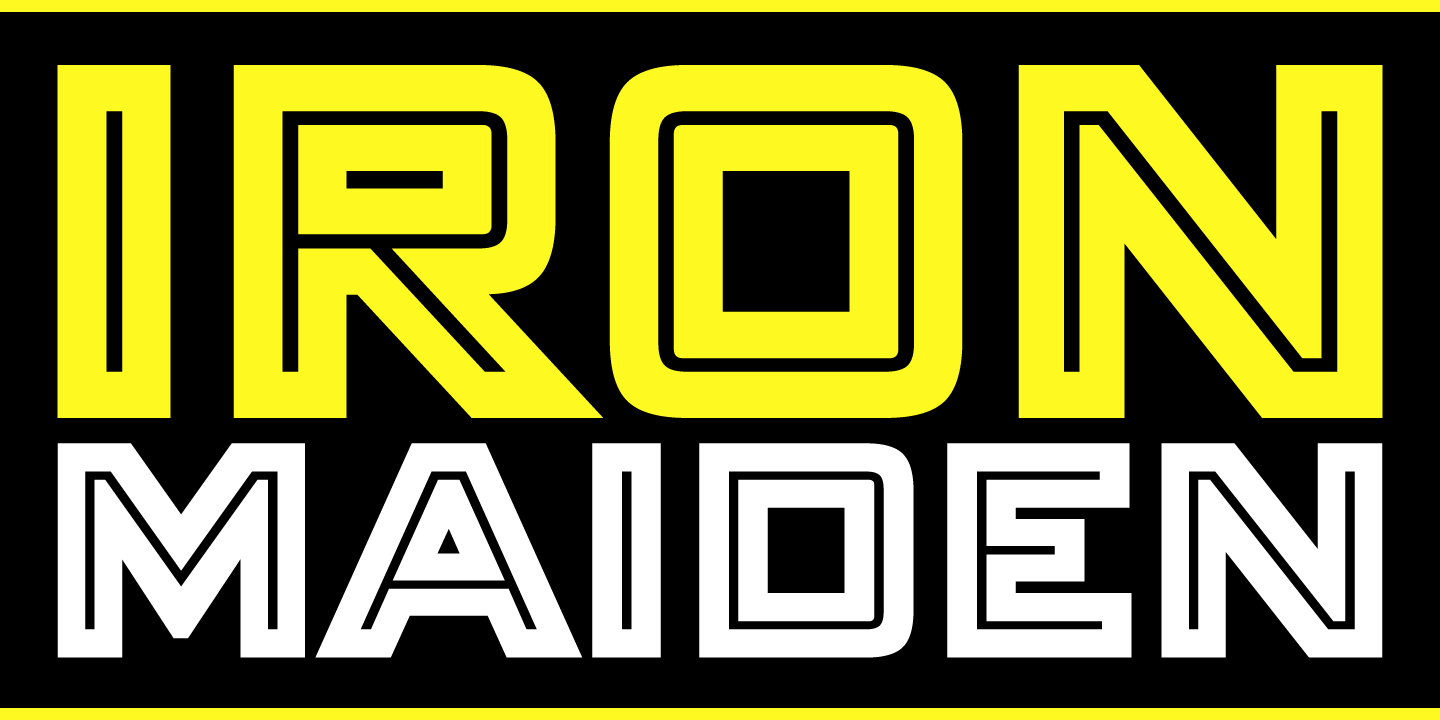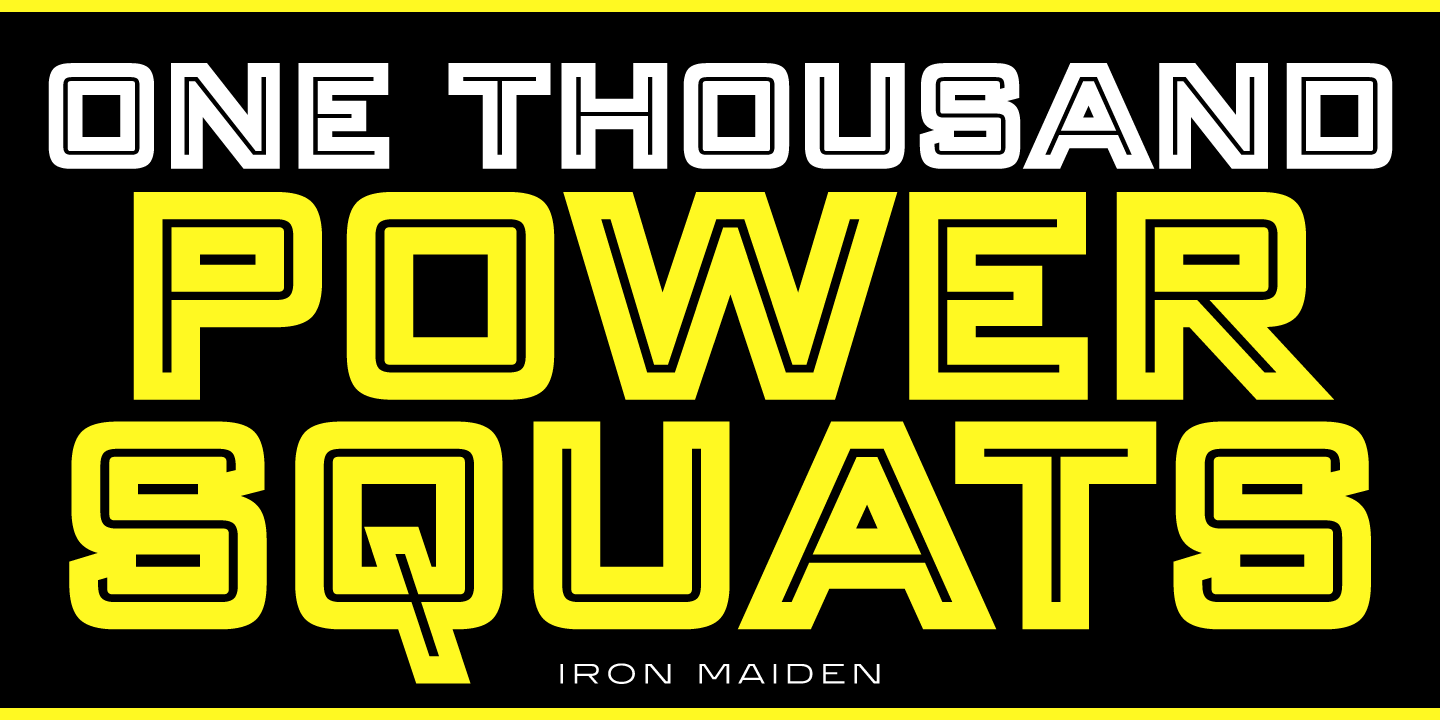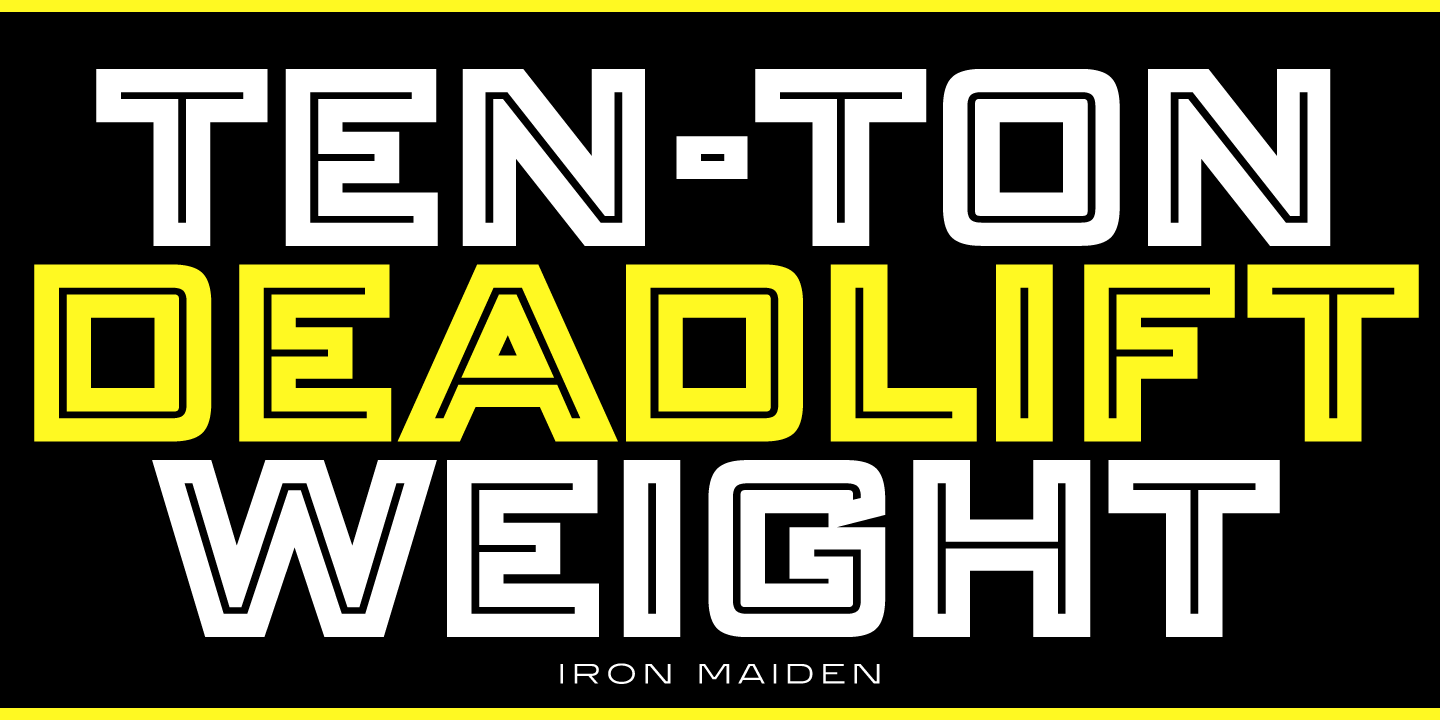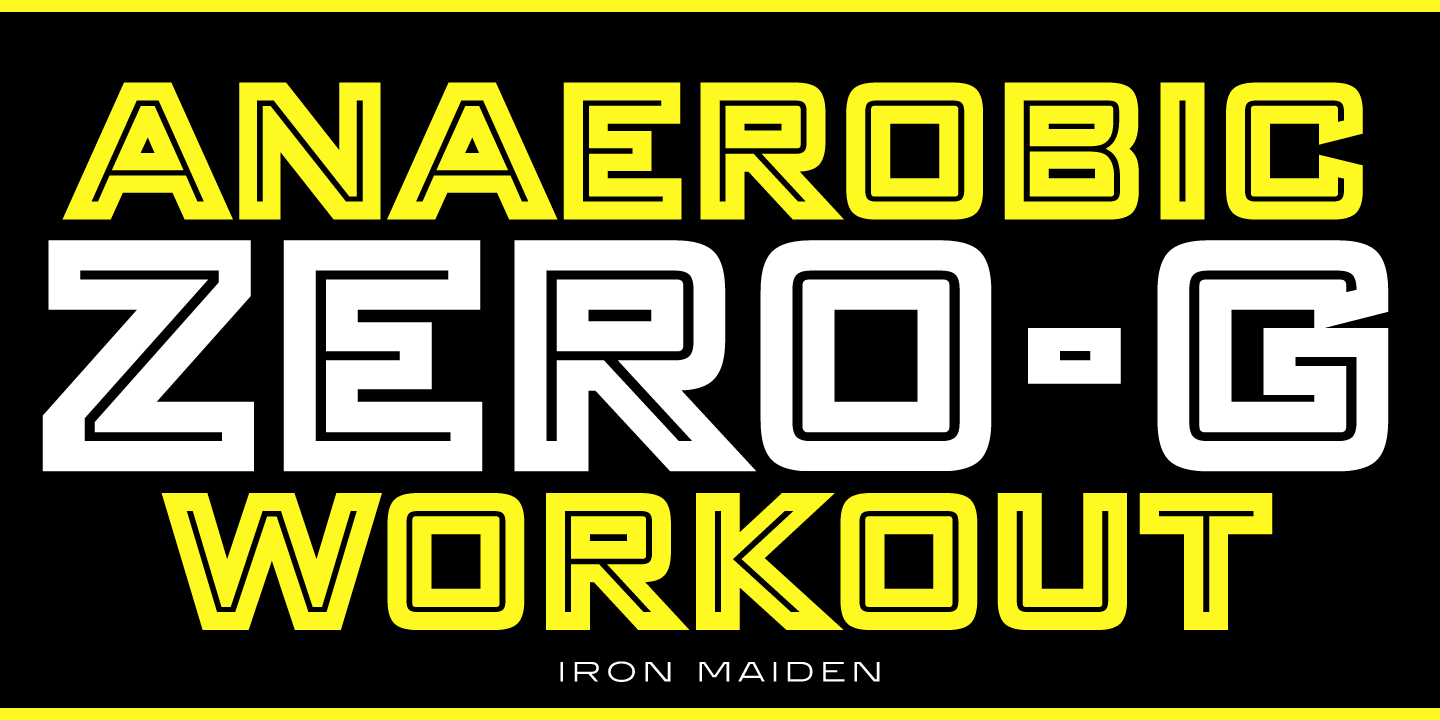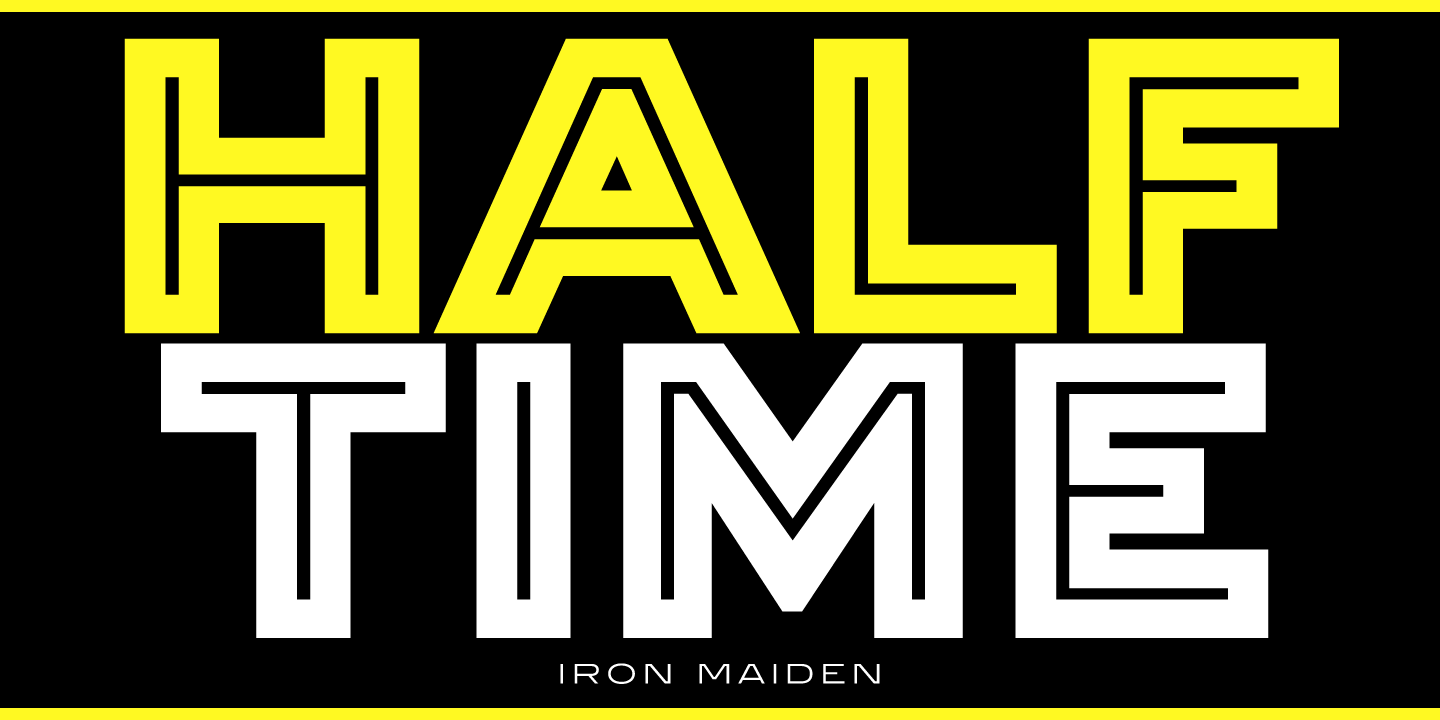
Iron Maiden Font
Iron Maiden is an all-caps, decorative, sans serif typeface in which the normally round letters are squared, e.g. the C, G, O, P, Q, R, and U. It was designed and produced by Steve Jackaman in 1997, and shares similarities with Red Rooster Collection’s ‘Banque Gothique’ font family. Iron Maiden has an in-your-face, masculine feel, and is incredibly dynamic at display size. Much like the band of the same name, this typeface shouts your message to the heavens.